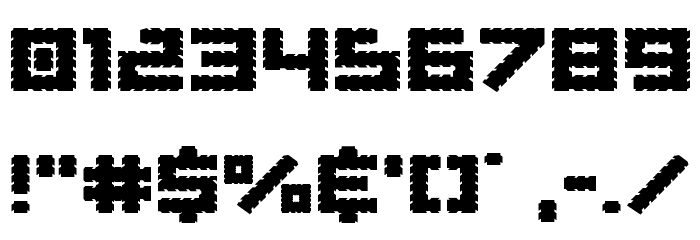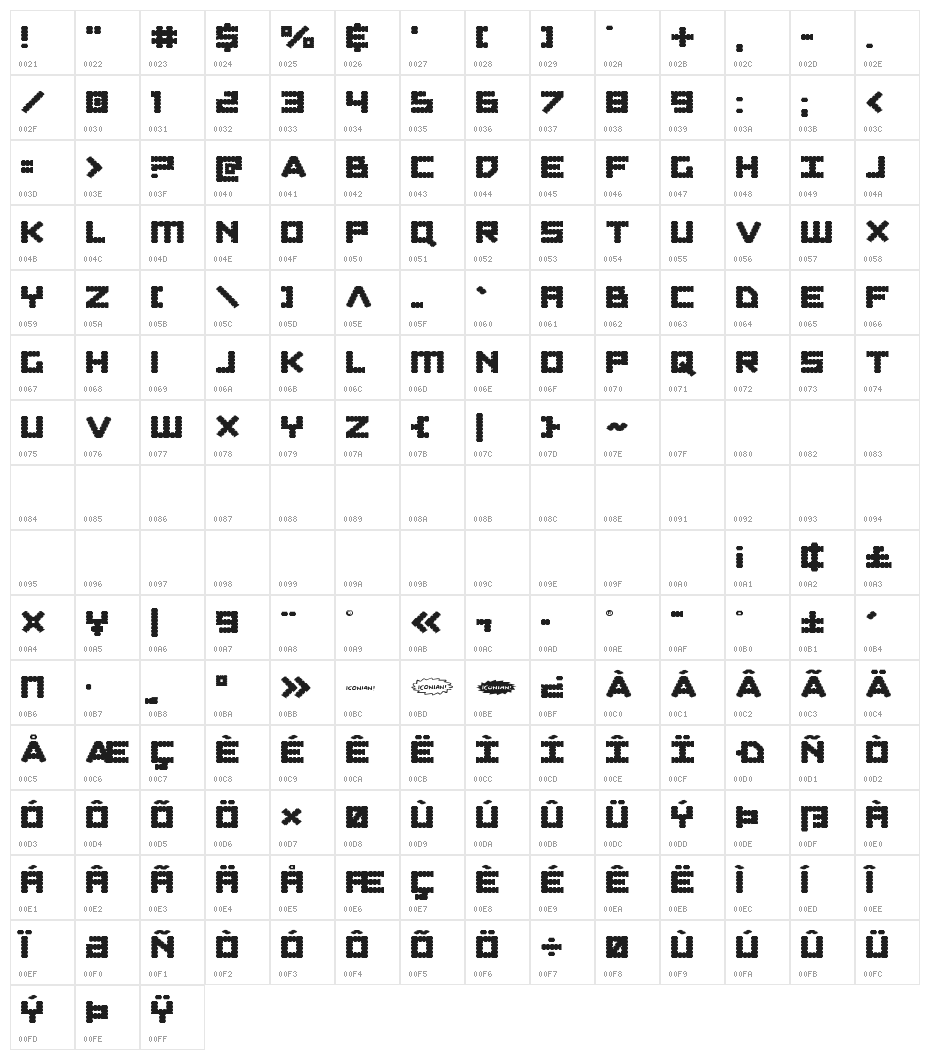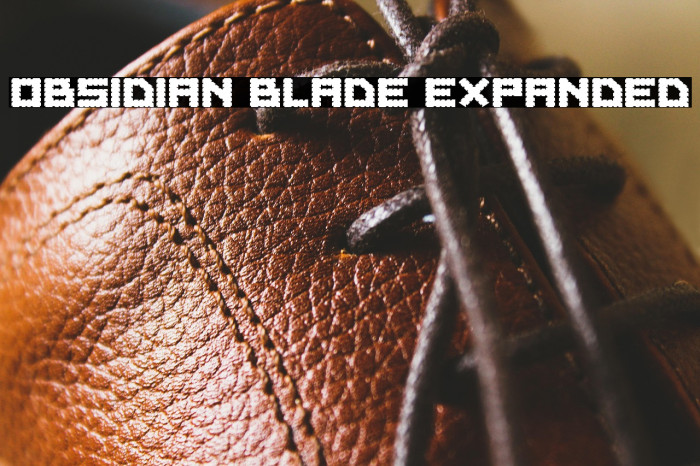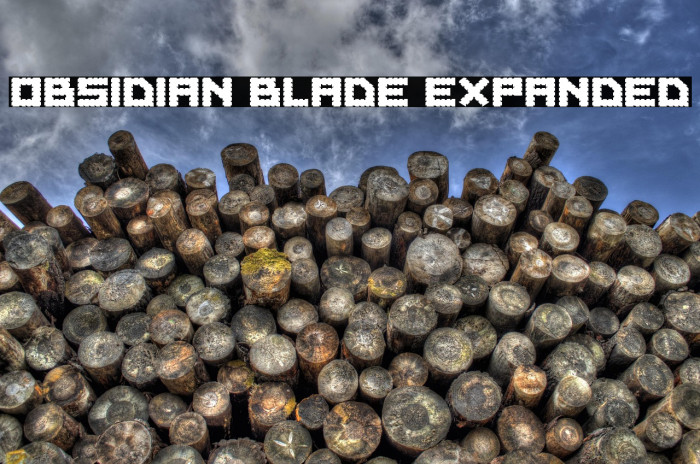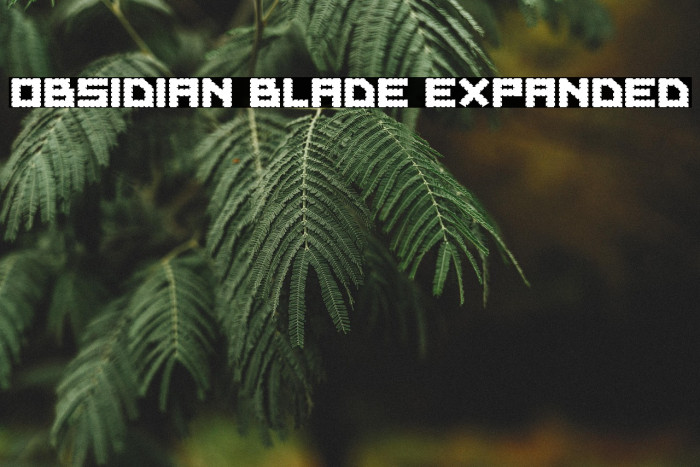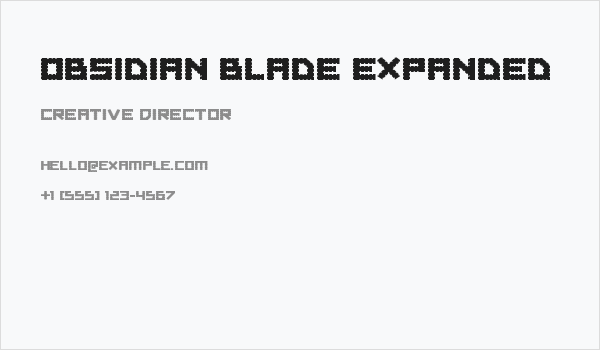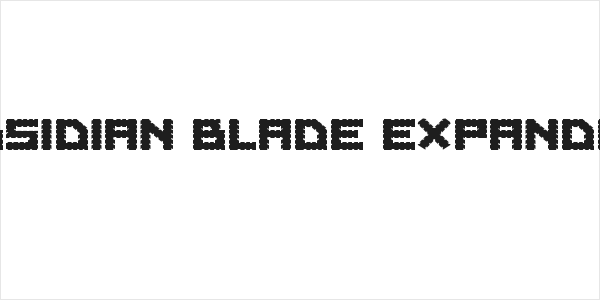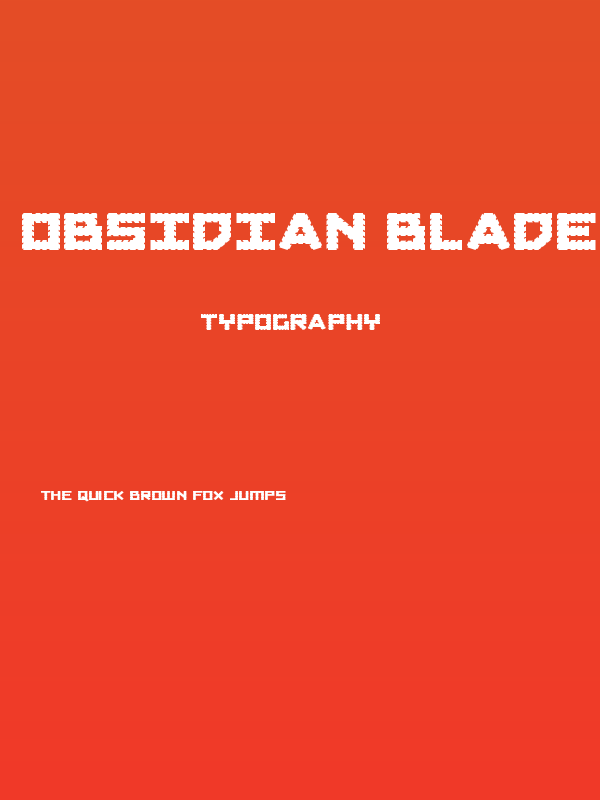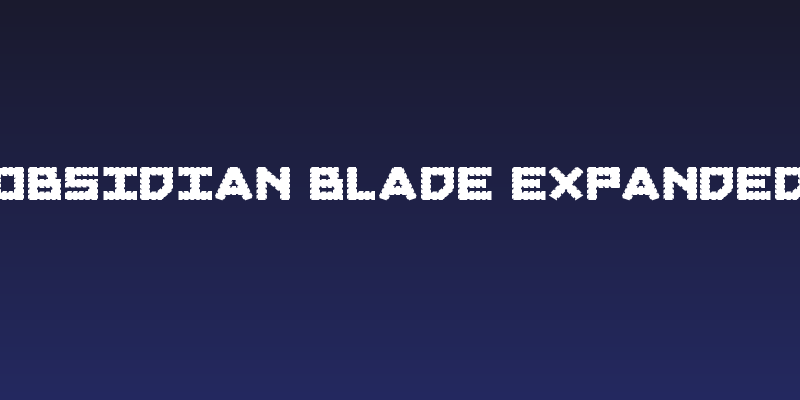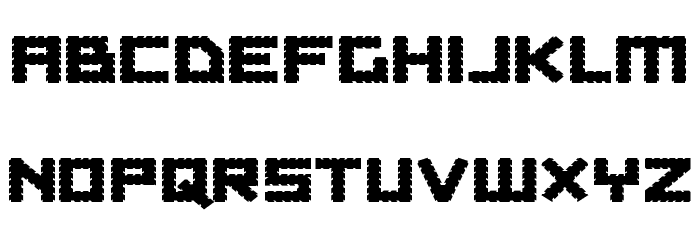
Obsidian Blade Expanded Font
Obsidian Blade Expanded Description
This font features a bold and striking design with a unique, jagged texture that resembles the sharp edges of a blade. The characters are constructed with a series of angular cuts and geometric shapes, giving it a distinct, aggressive appearance. The uppercase and lowercase letters maintain a consistent style, with each character exhibiting a blocky, robust form. The numbers and special characters follow the same design principles, ensuring uniformity across the typeface. This font's expanded width and bold weight make it particularly eye-catching, suitable for projects that require a strong visual impact.
Overall StyleModern, Aggressive
Proposed ProjectsIdeal for video game titles, action movie posters, or any project needing a bold, aggressive look.